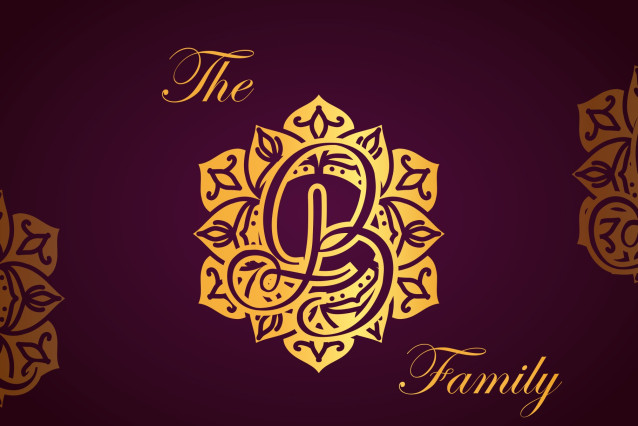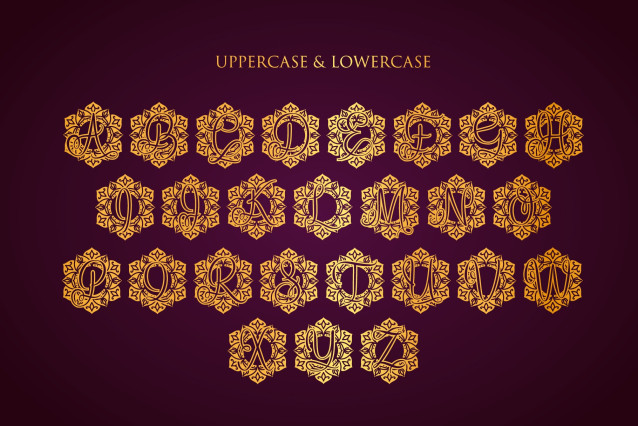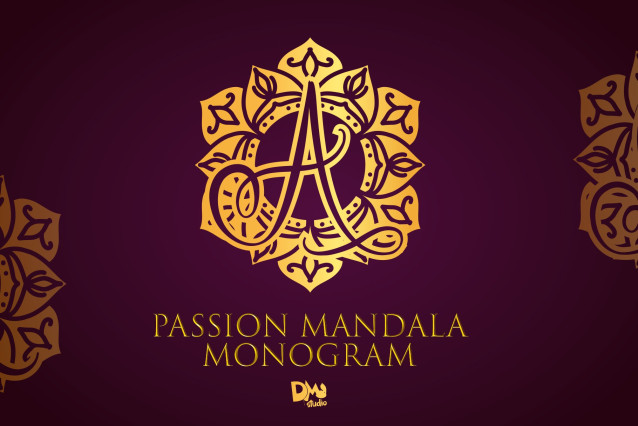
Passion Mandala Monogram Font
Passion Mandala Monogram is a captivating font that blends passionate design with intricate mandala artistry. Inspired by the intensity of heartfelt emotion and ornamental traditions, this monogram typeface is ideal for romantic branding, luxurious packaging, wedding invitations, love-themed projects, and spiritual decor. With its bold flourishes and intricate curves, it brings a powerful visual energy to your creative work.